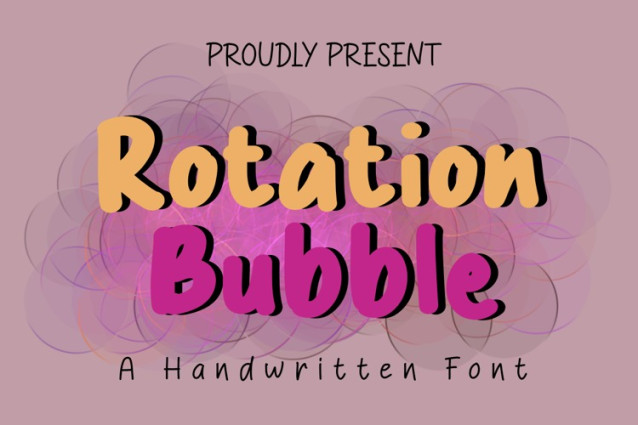
Rotation Bubble Font
Rotation Bubble Font – Check out this vibrant display font that blends a casual script style with a high-energy 3D effect. Perfect for content creators who want their titles to pop with a touch of “Humor Smart.” Whether it’s for YouTube thumbnails or streetwear branding, this font brings a fun, urban edge to every design.